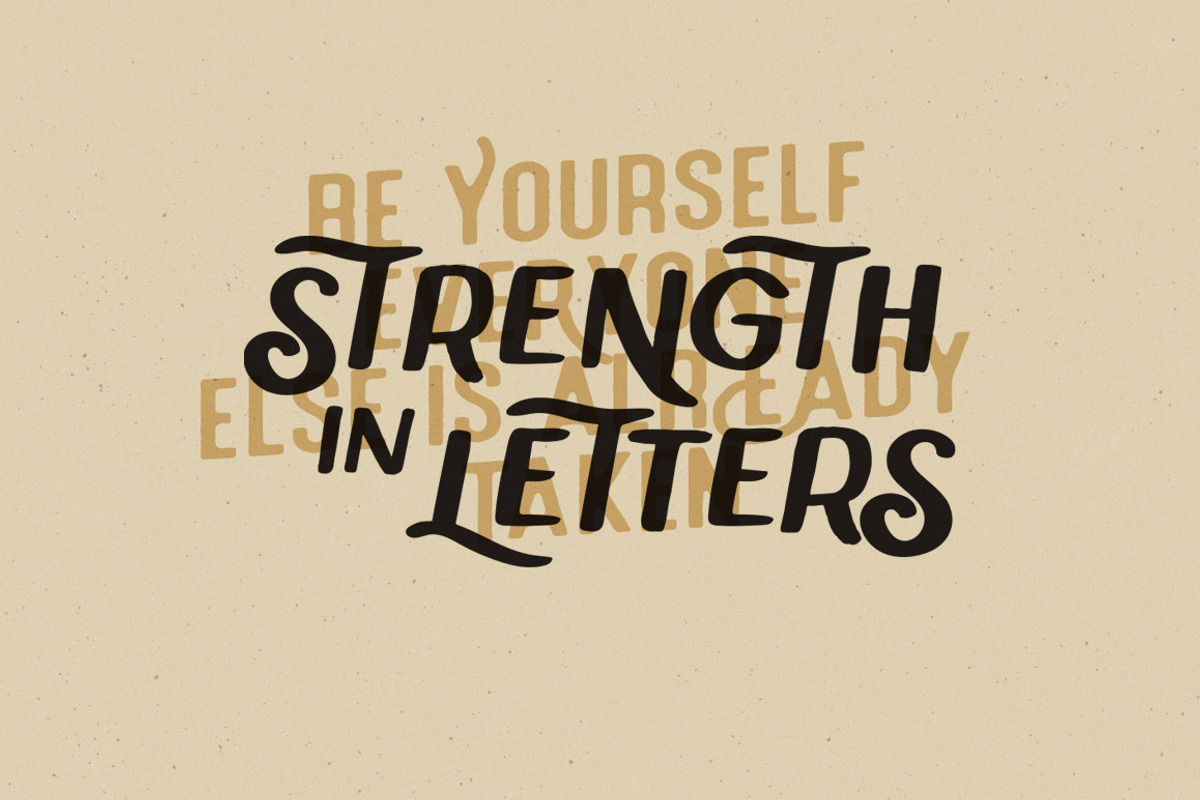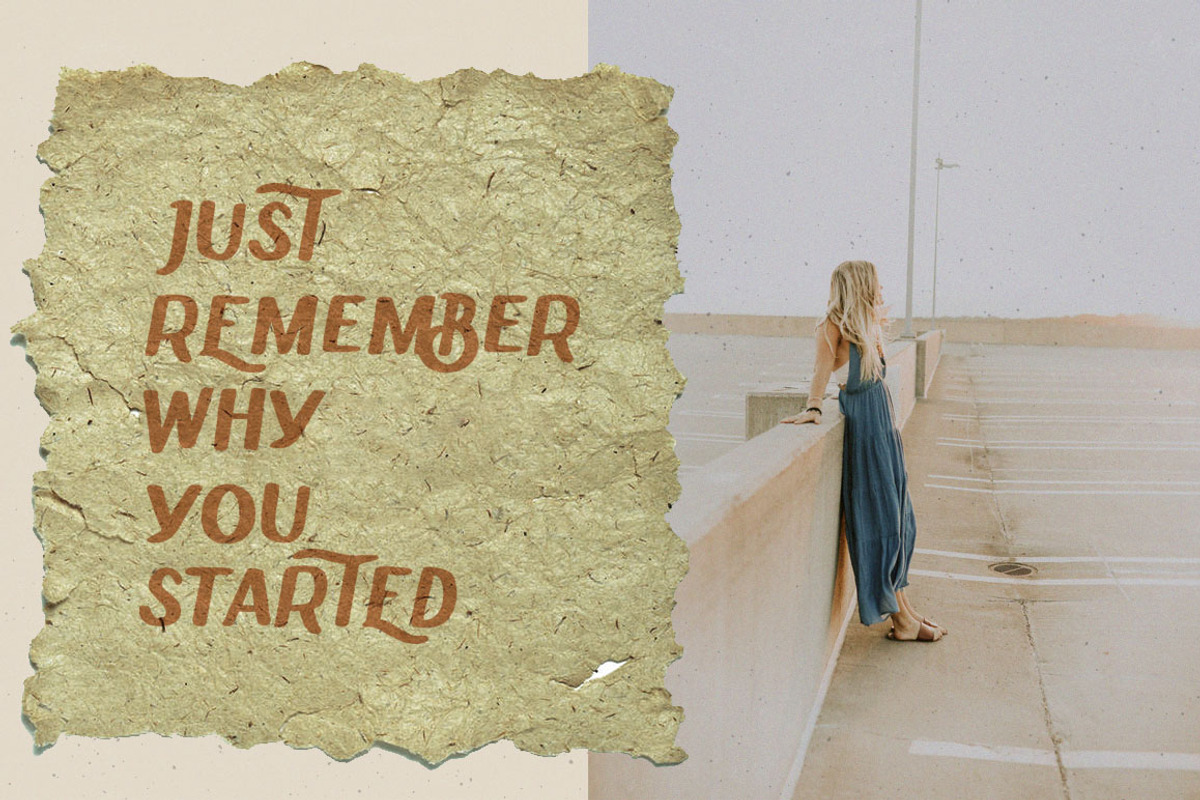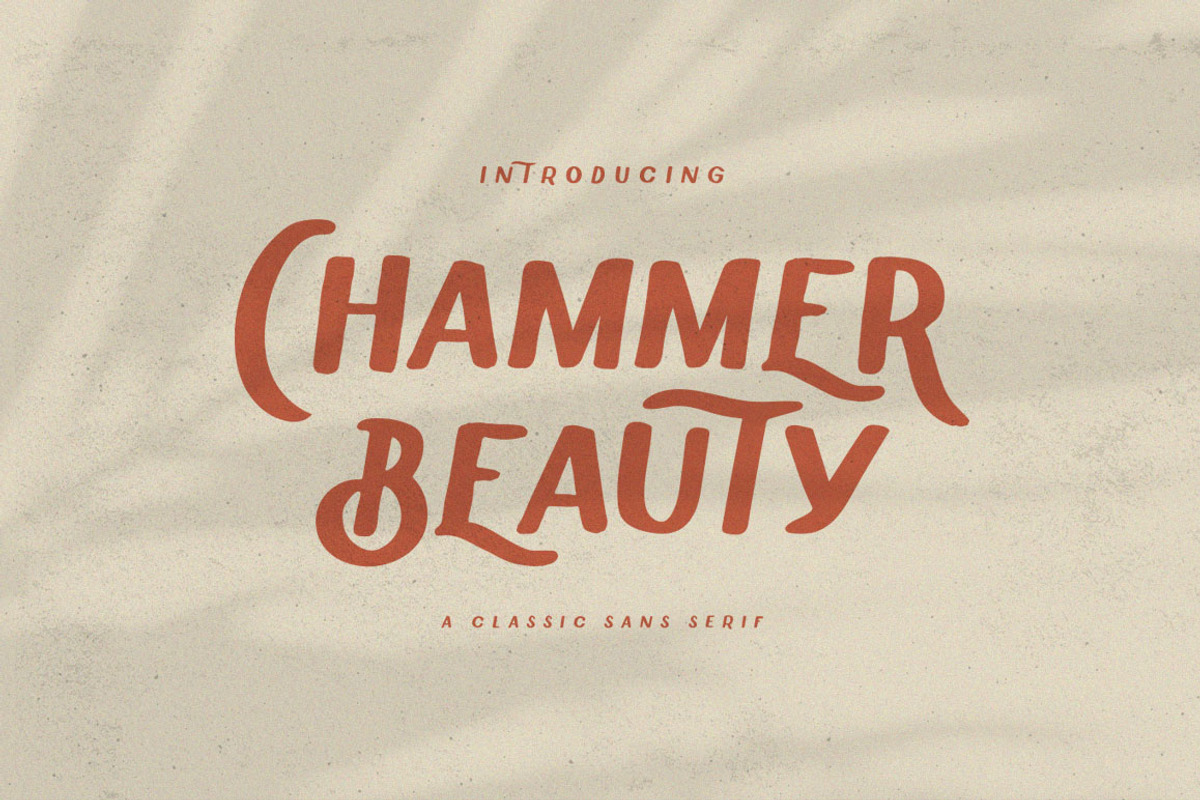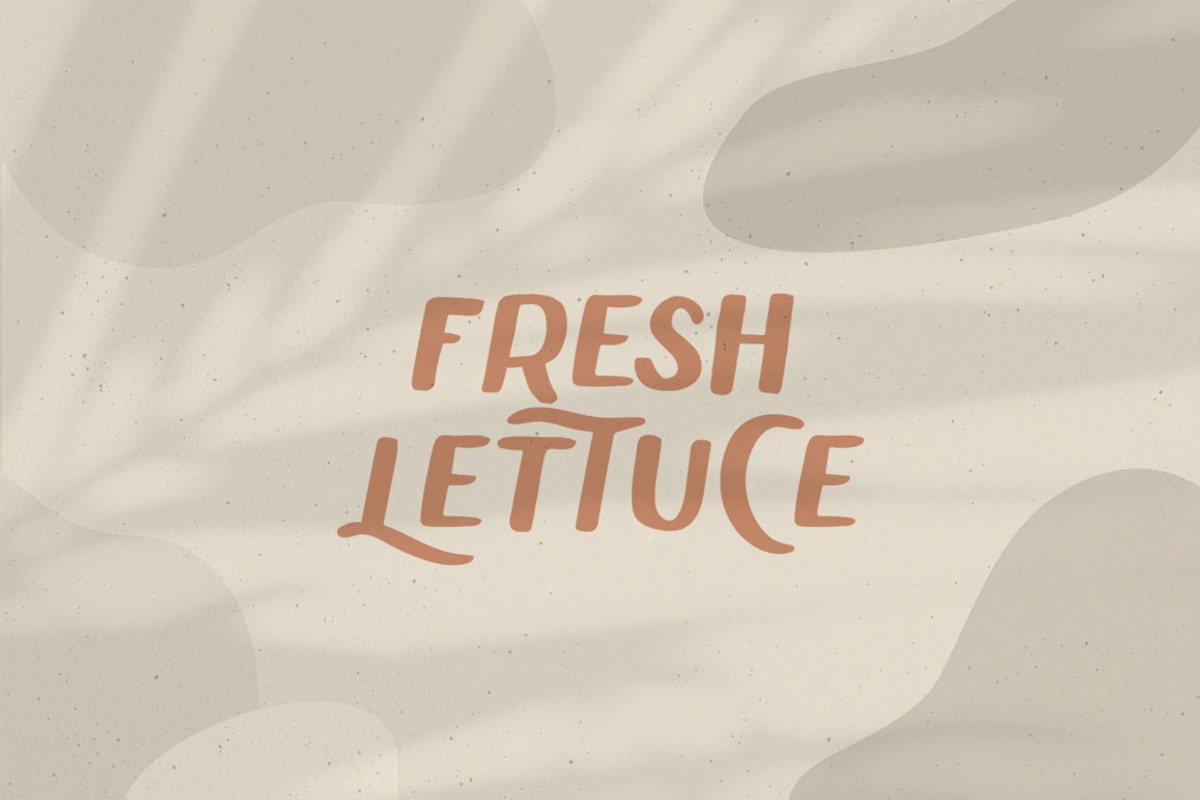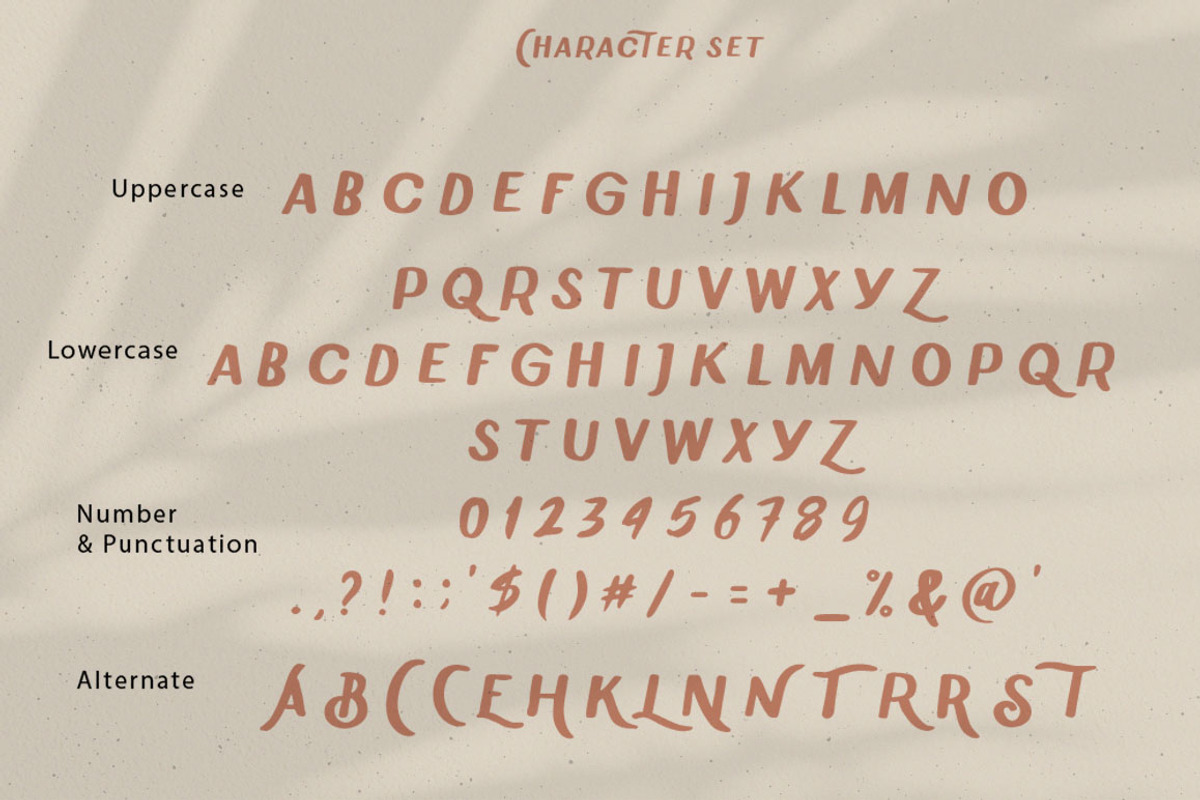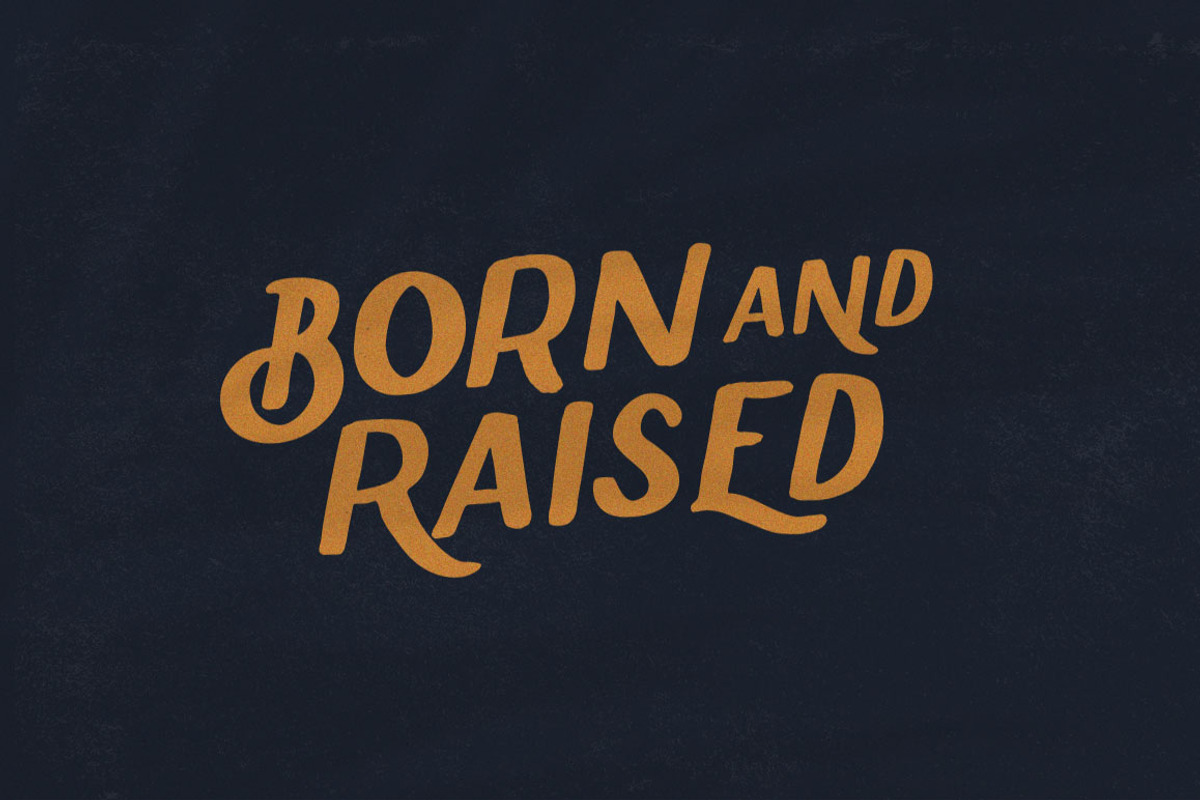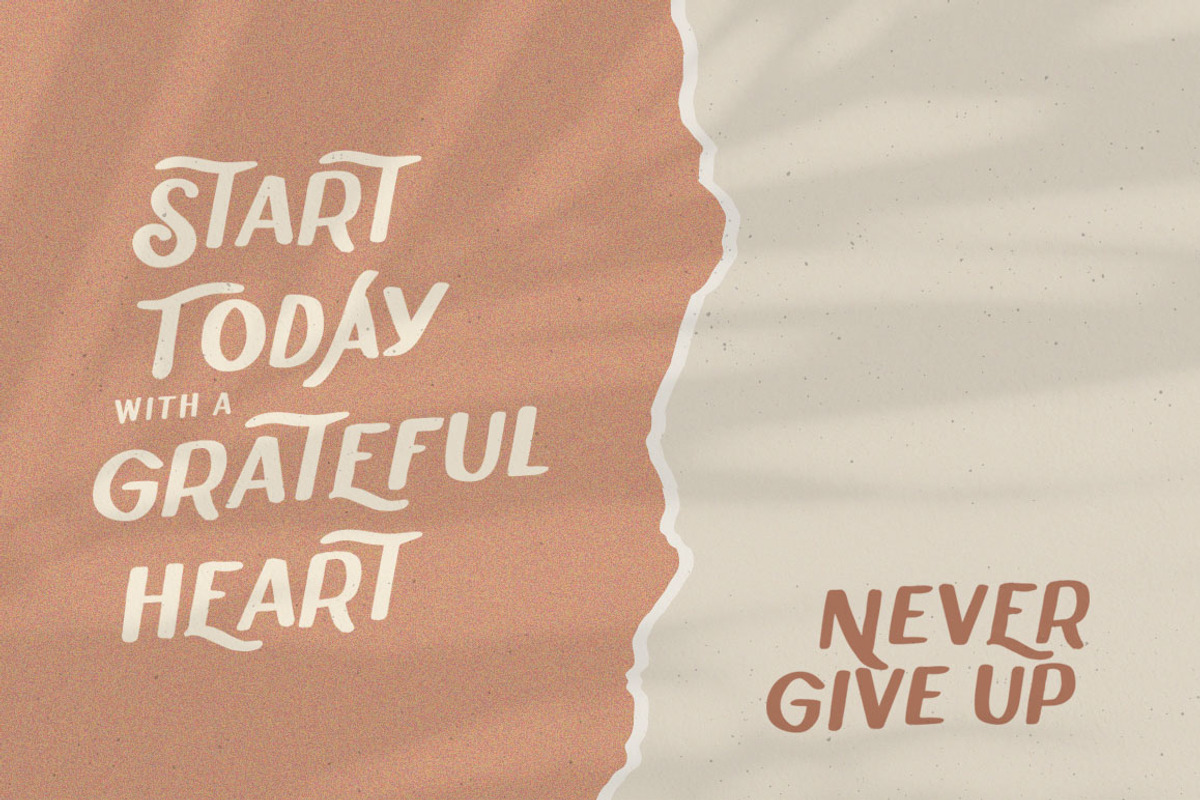
Introducing Chammer Beauty Sans Serif - A classic sans serif with many alternative styles to choose. Bold and simple. Chammer Beauty has a smooth edge to simulate the appearance of hand prints, so that it will bring vintage hand-made works that look like natural and memorable. The OpenType feature with Alternate Stylistic and Alternate Contextual across several characters for you makes it possible to mix and match letter pairs to suit your design.
Works amazing by itself for logos, headlines, posters, packaging, company logo, cafe logo, book title, wedding font, vintage pop design, retro design and more.
This can be used to create almost any type of design project such as printed materials. Just use your imagination, your project will be more alive and look great than before with Chammer Beauty. Features:
- Uppercase Characters
- Lowercase Characters
- Discretionary Ligatures
- Stylistic Alternates & Ligatures